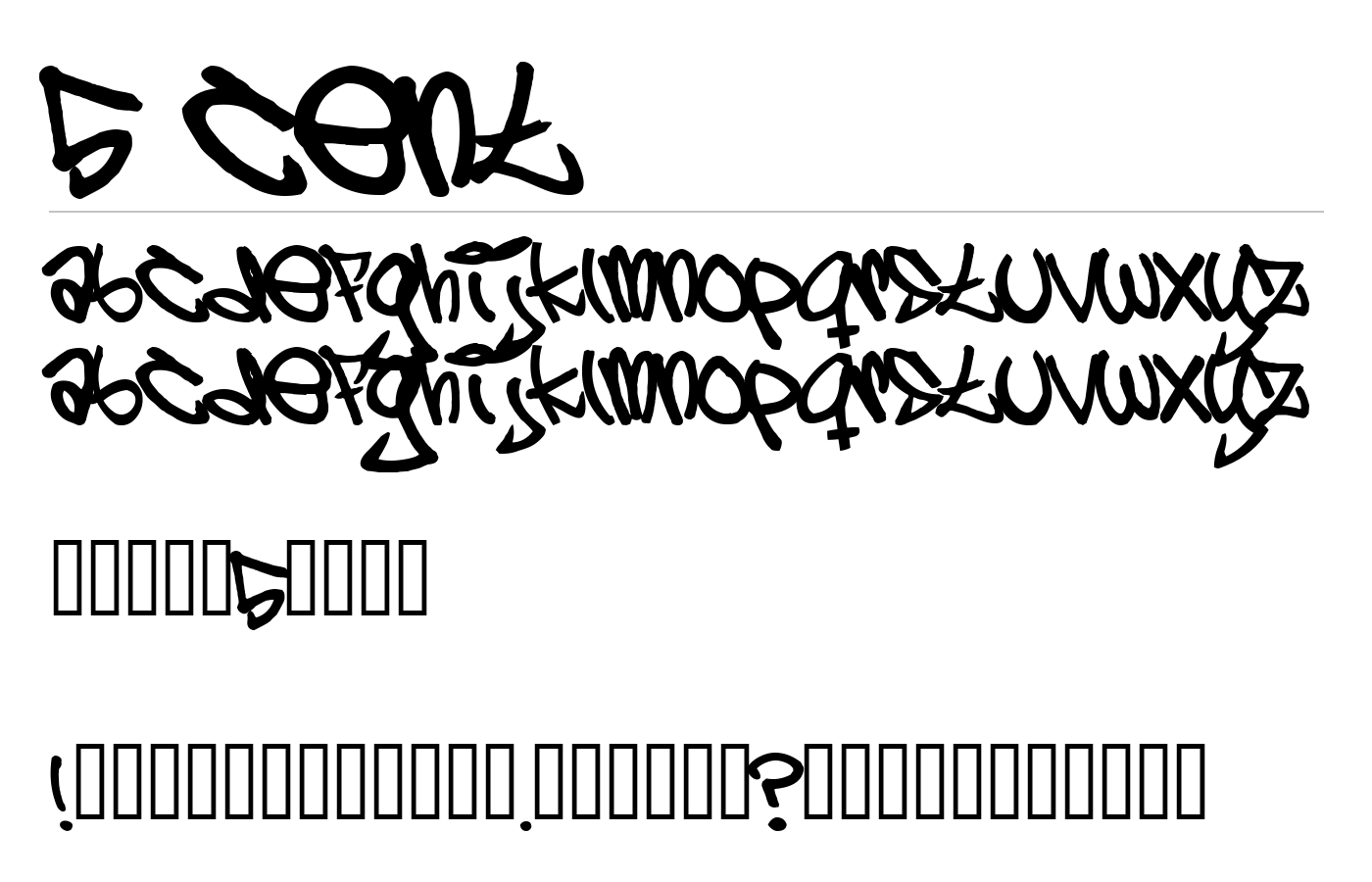
5 Cent Font is a bold, hand-drawn graffiti style typeface that captures an urban, expressive vibe with its playful, irregular shapes and energetic strokes. Its casual, freeform letterforms make it perfect for creative projects that want to convey street culture, individuality, or a rebellious attitude. This font works well in posters, logos, and artistic designs where a lively and unconventional feel is desired.
5 cent Font
About 5 cent Font